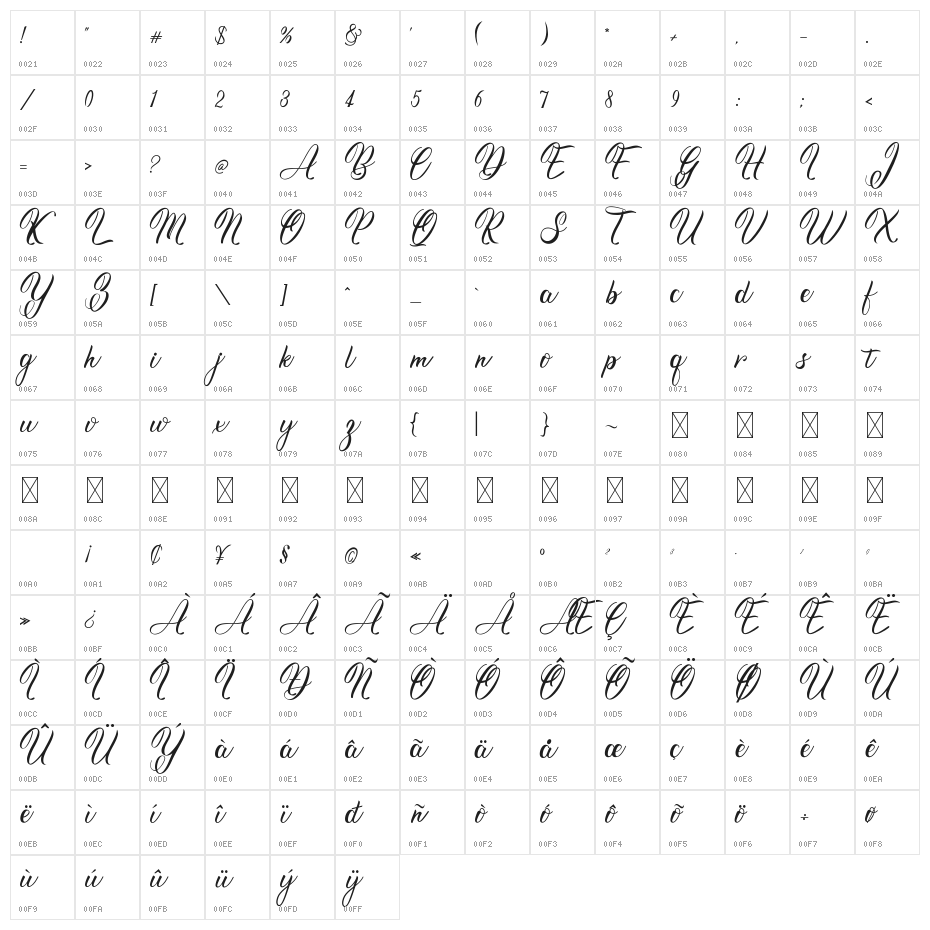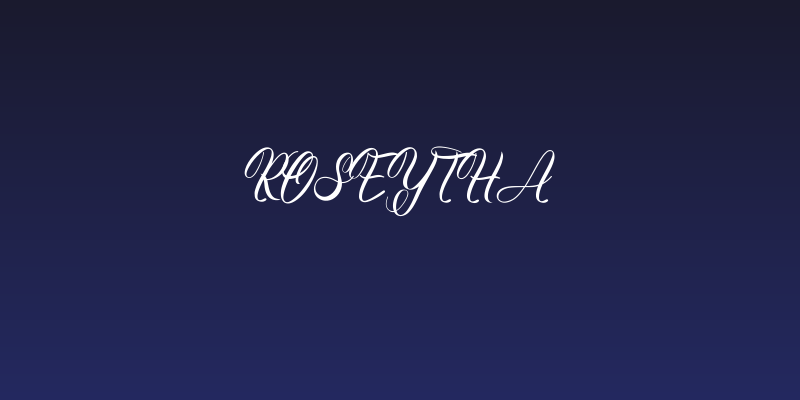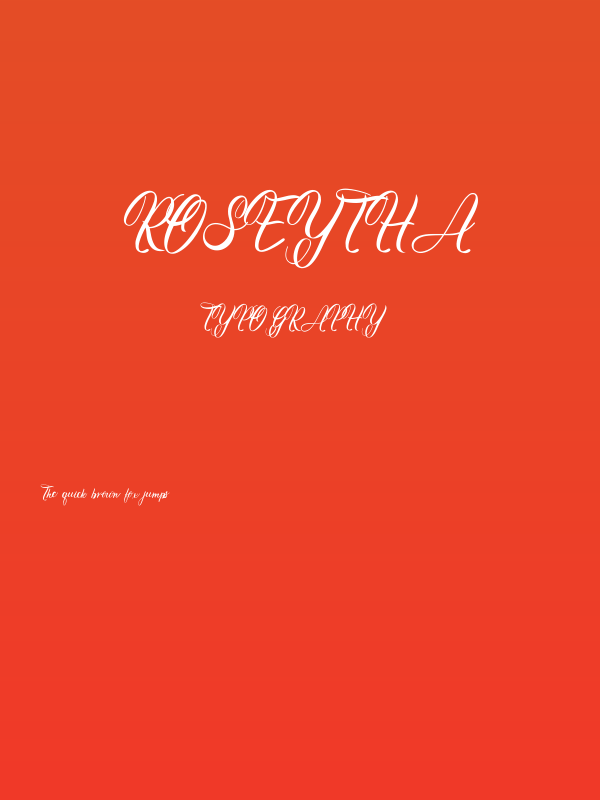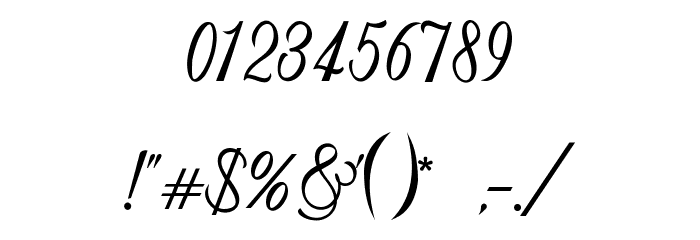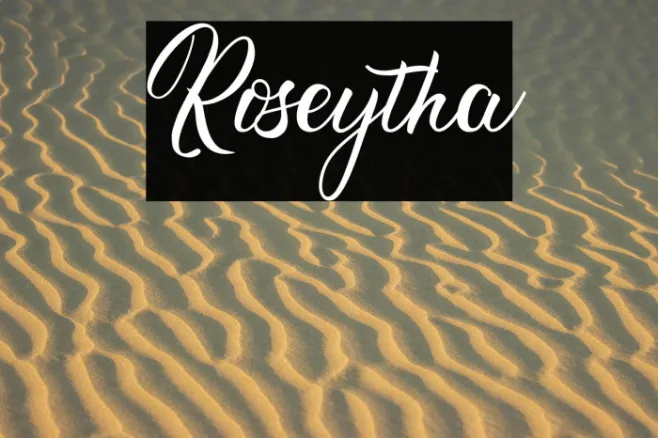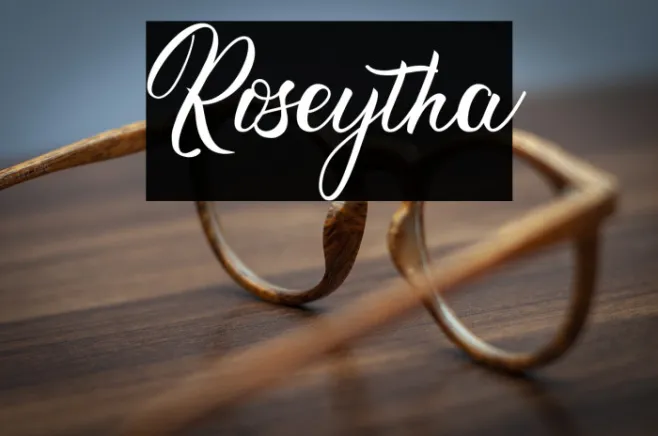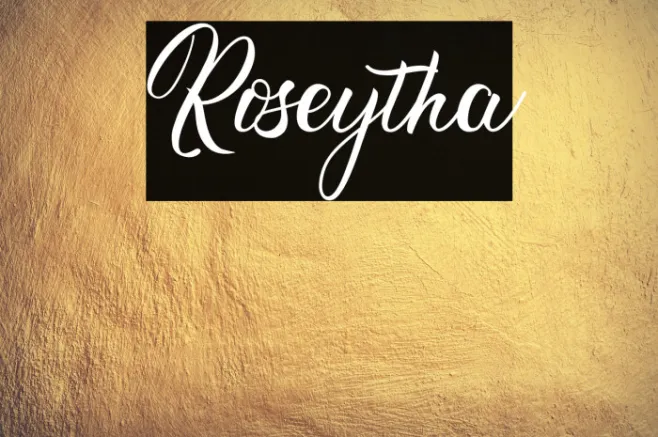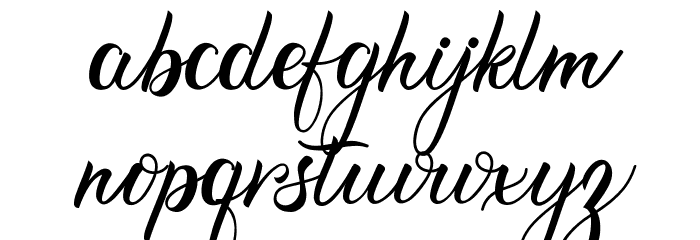
Roseytha Font
Roseytha Description
This elegant script font features flowing, interconnected strokes that exude a sense of sophistication and grace. The uppercase letters are ornate, with sweeping curves and flourishes that add a decorative touch. The lowercase letters maintain a consistent style, with smooth, fluid lines that enhance readability while retaining the font's artistic flair. The numerals are designed to complement the letters, with similar curves and a balanced appearance. Special characters are thoughtfully integrated, maintaining the overall aesthetic. This font is perfect for projects that require a touch of elegance and style.
| Overall Style | Elegant |
| Use Case | Logos, Invitations, Decorative text |
| Proposed Projects | Ideal for wedding invitations, elegant branding, greeting cards, and upscale packaging. |